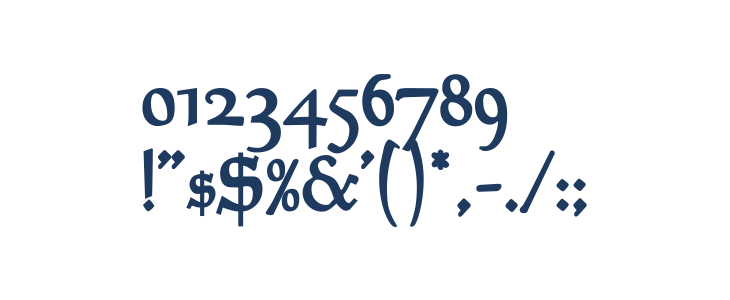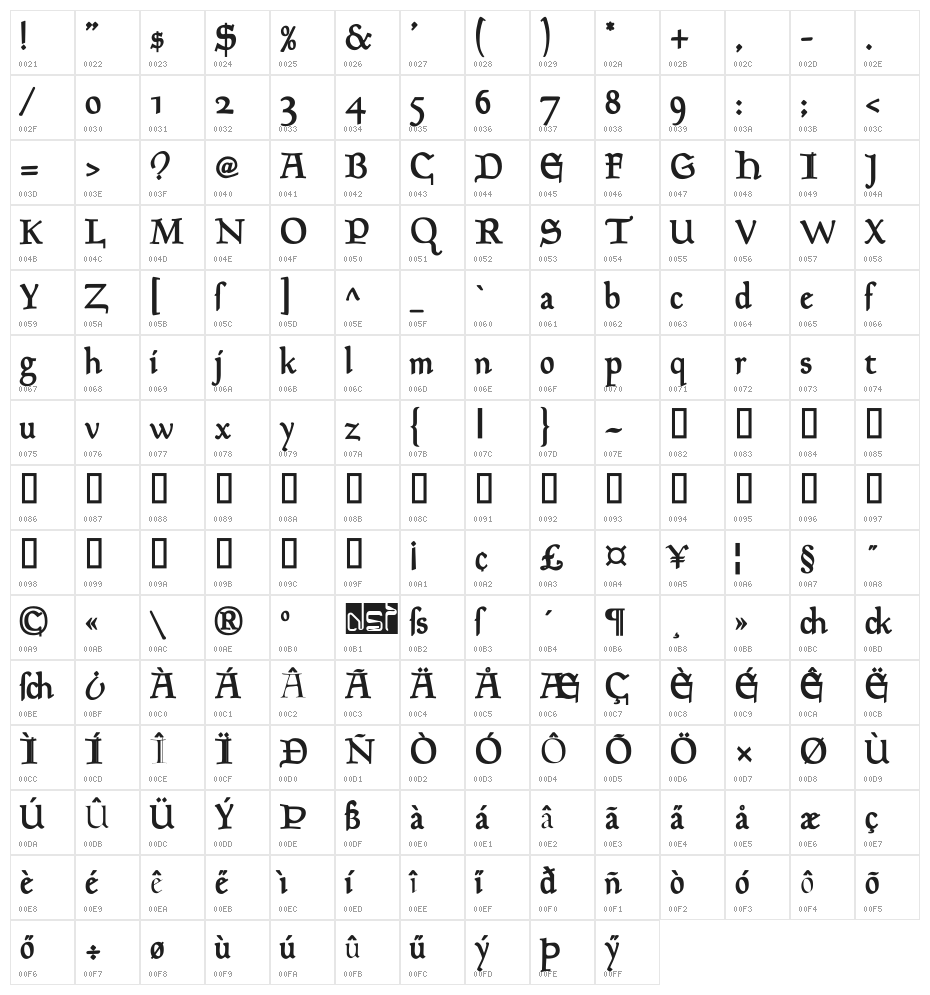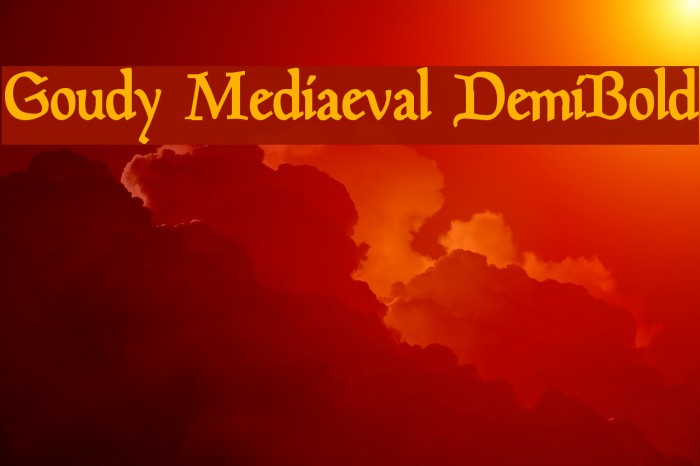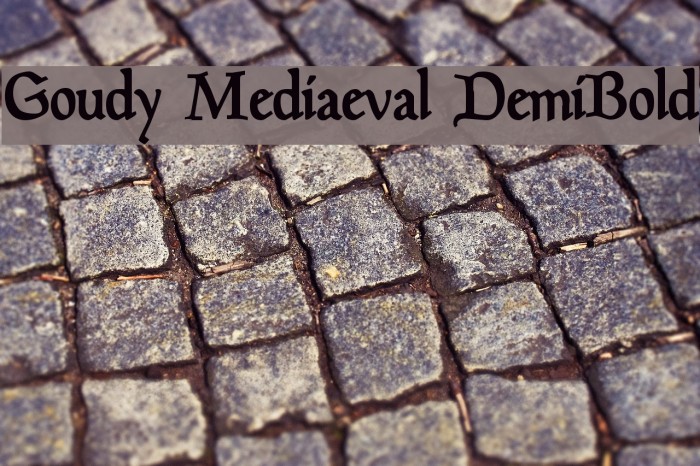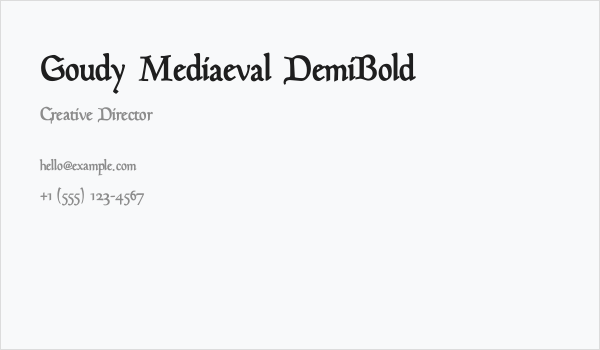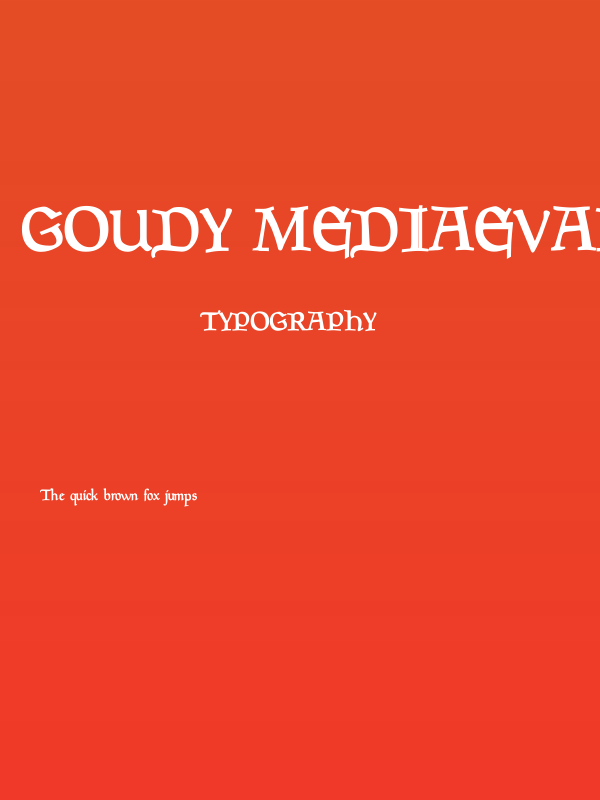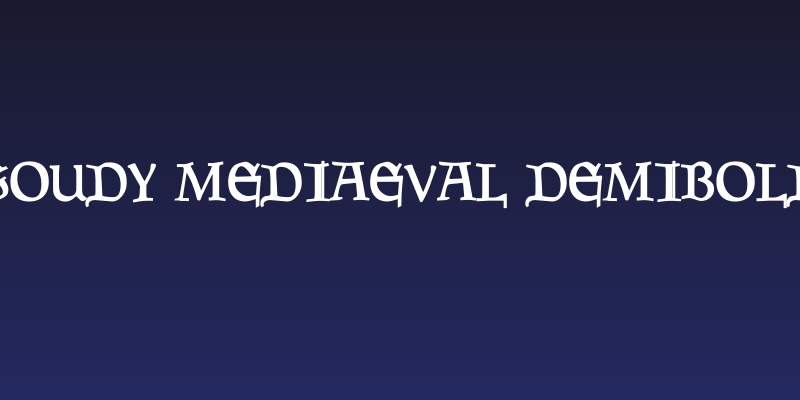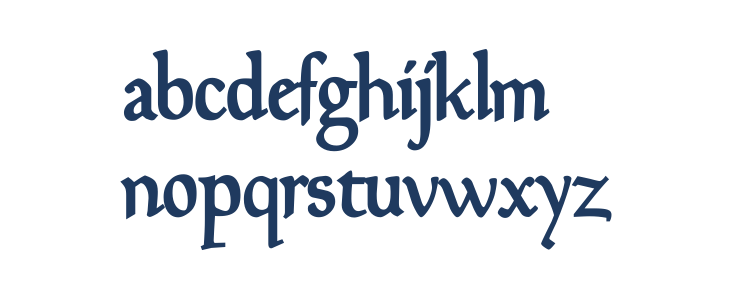
Goudy Mediaeval DemiBold Font
Goudy Mediaeval DemiBold Description
This font features a classic and elegant design with a medieval touch, characterized by its unique serifs and slightly curved strokes. The uppercase letters are bold and commanding, while the lowercase letters maintain a consistent flow with a touch of whimsy. The numerals are distinct and easily readable, complementing the overall aesthetic. Special characters are crafted with attention to detail, enhancing the font's versatility. The design evokes a sense of tradition and history, making it suitable for projects that require a sophisticated and timeless appearance.
| Use Case | Headlines, Logos, Book covers |
| Proposed Projects | Ideal for historical publications, book covers, formal invitations, and branding that requires a traditional and sophisticated look. |